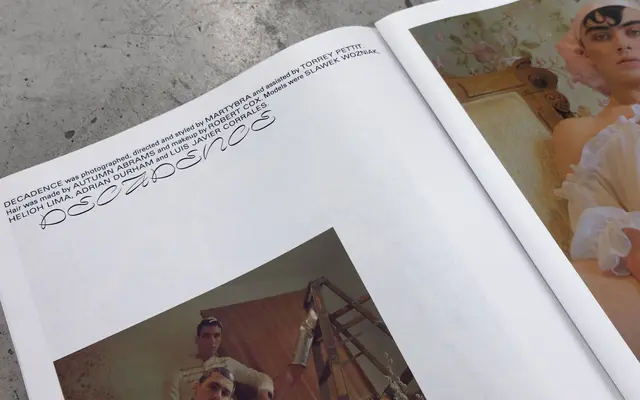
Nostra
Plain Form · Lucas Descroix · 2019
A two-style monospaced display family pairing a heavy block-like cut with a hairline cursive, creating an almost pattern-like visual rhythm at text scale.
Designed by Lucas Descroix and released in 2019, Nostra pairs two wildly contrasting styles — the dense, wall-like Sett and the fluid, flourish-inspired Stream — united solely by their shared monospaced width. That uniform spacing gives set text an optical, near-abstract quality, hovering between legibility and geometry. The family covers Extended Latin, Cyrillic and Greek, with Cyrillic consulting by Ilya Ruderman and Yury Ostromentsky, and received recognition from Modern Cyrillic 2019, Communication Arts 2020 and Typographica's Favourite Typefaces of 2019.
Nostra is a display family built around a strict monospaced grid, with two radically contrasting cuts — a heavy solid style and a hairline cursive — placing it firmly in the display category rather than any conventional text genre.